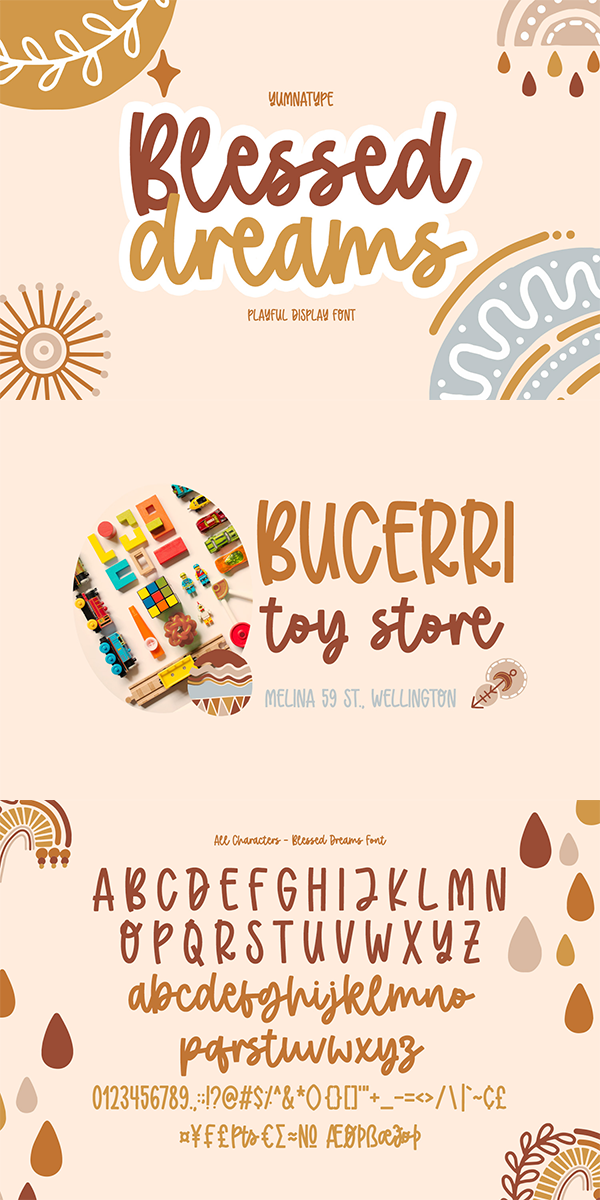
Blessed Dreams Font
About Blessed Dreams
Blessed Dreams is a visually attractive display font with soft, gentle nuances caused by the swinging end of the wipes and curves. Each of the letters is interconnected as in the cursive font and the proportions are relatively similar for a legibility reason. Furthermore, you can apply this font, which also provides you with a clipart as a bonus, for big text sizes to be legible. In addition, you may make use of the available features here.
Blessed Dreams fits best for various design projects, such as brandings, posters, banners, headings, magazine covers, quotes, printed products, merchandise, social media, etc. Find out more ways to use this font by taking a look at the font preview.